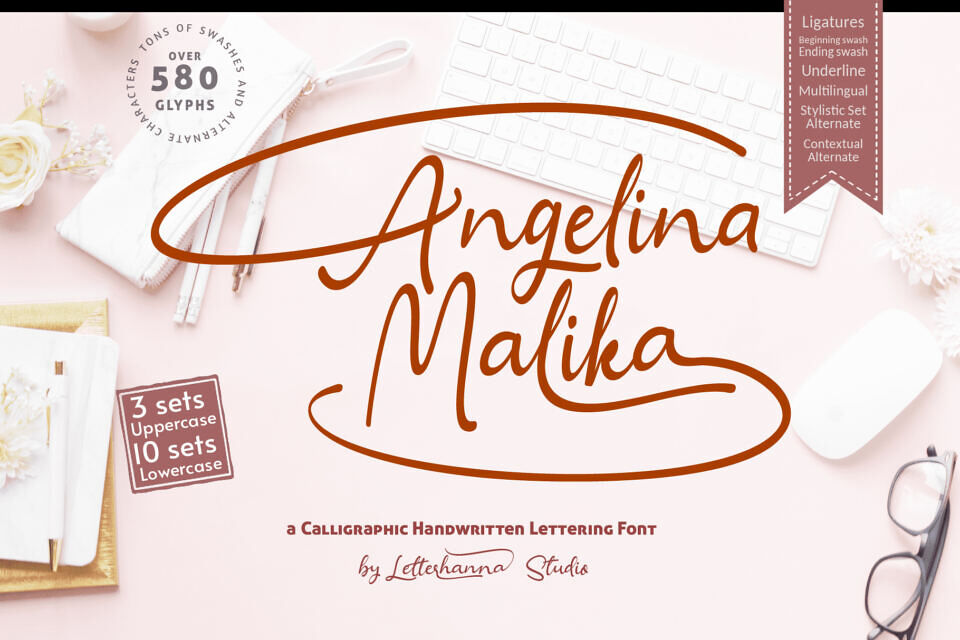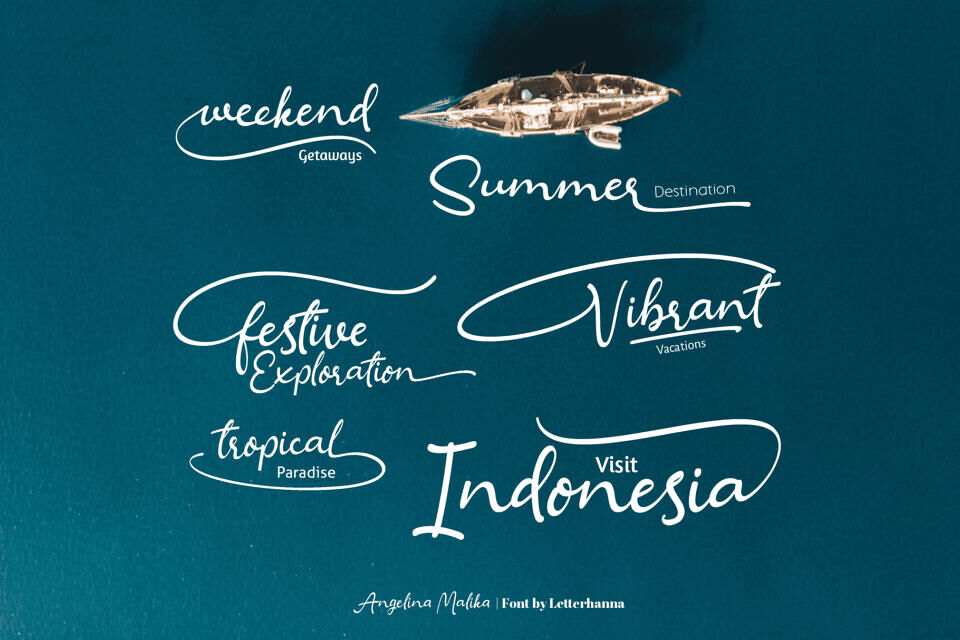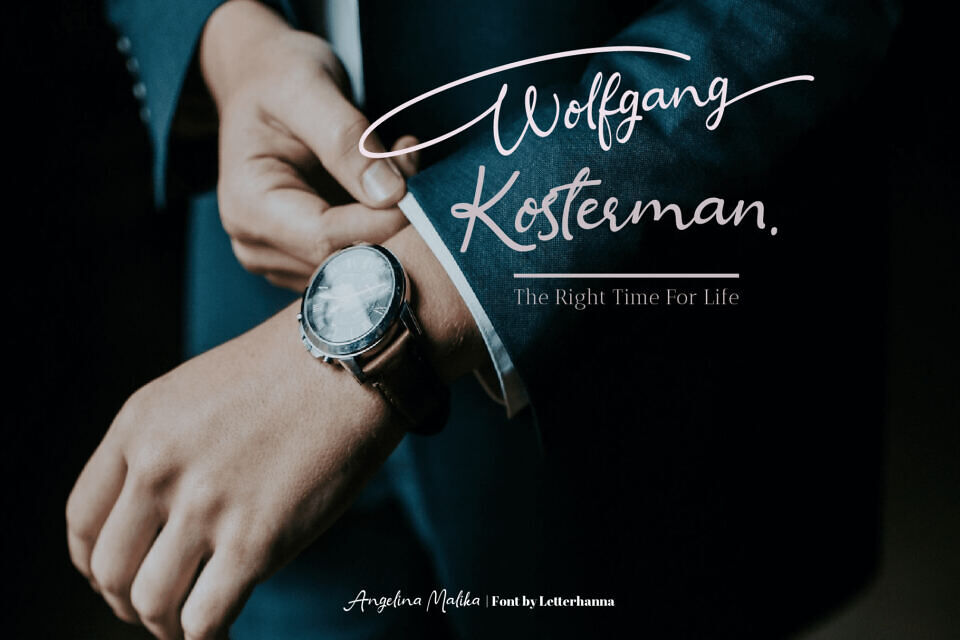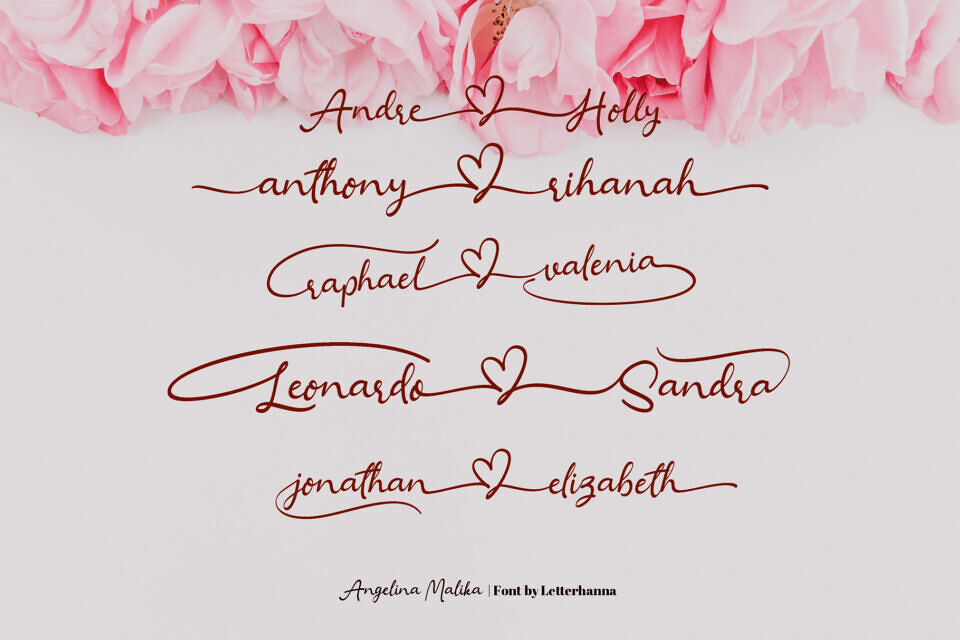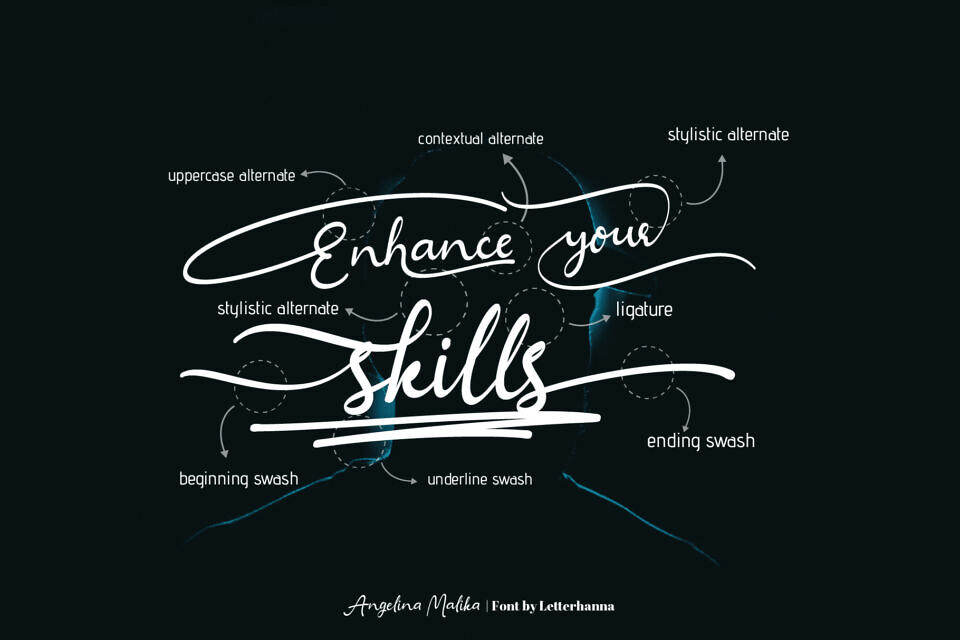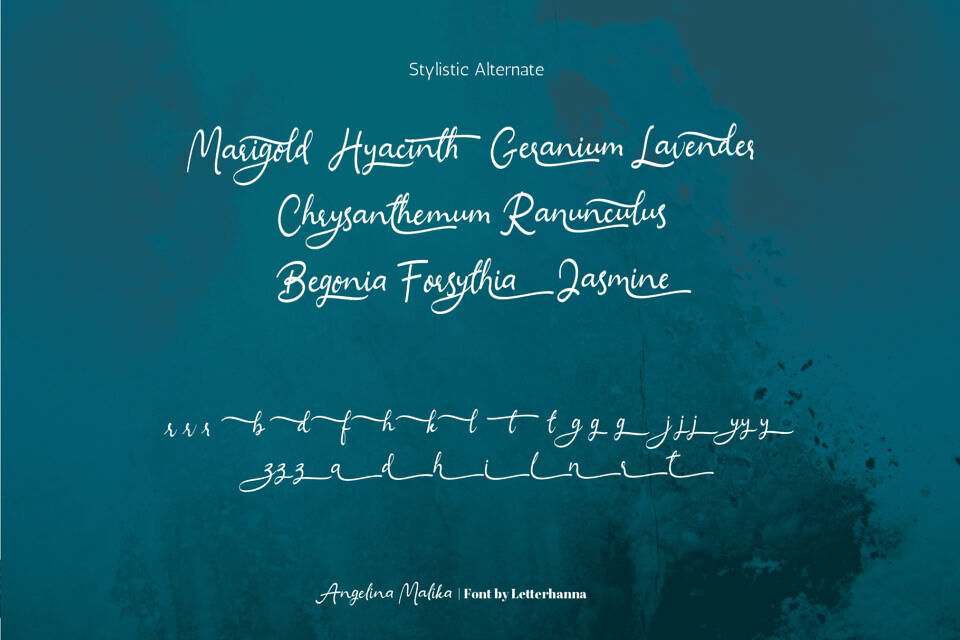
Angelina Malika Font
Angelina Malika is a bold calligraphic lettering script font. Fall for its ravishing style and use it to create gorgeous wedding invitations, beautiful logo, personal branding, eye-catching social media posts, and much more!
The font was created to look as close to a natural handwritten script as possible by including natural-looking ligatures, and two full set of lowercase alternates tail, the tail will change using “contextual alternate” according to the letter in front of it. There are also 25 underline swashes included.